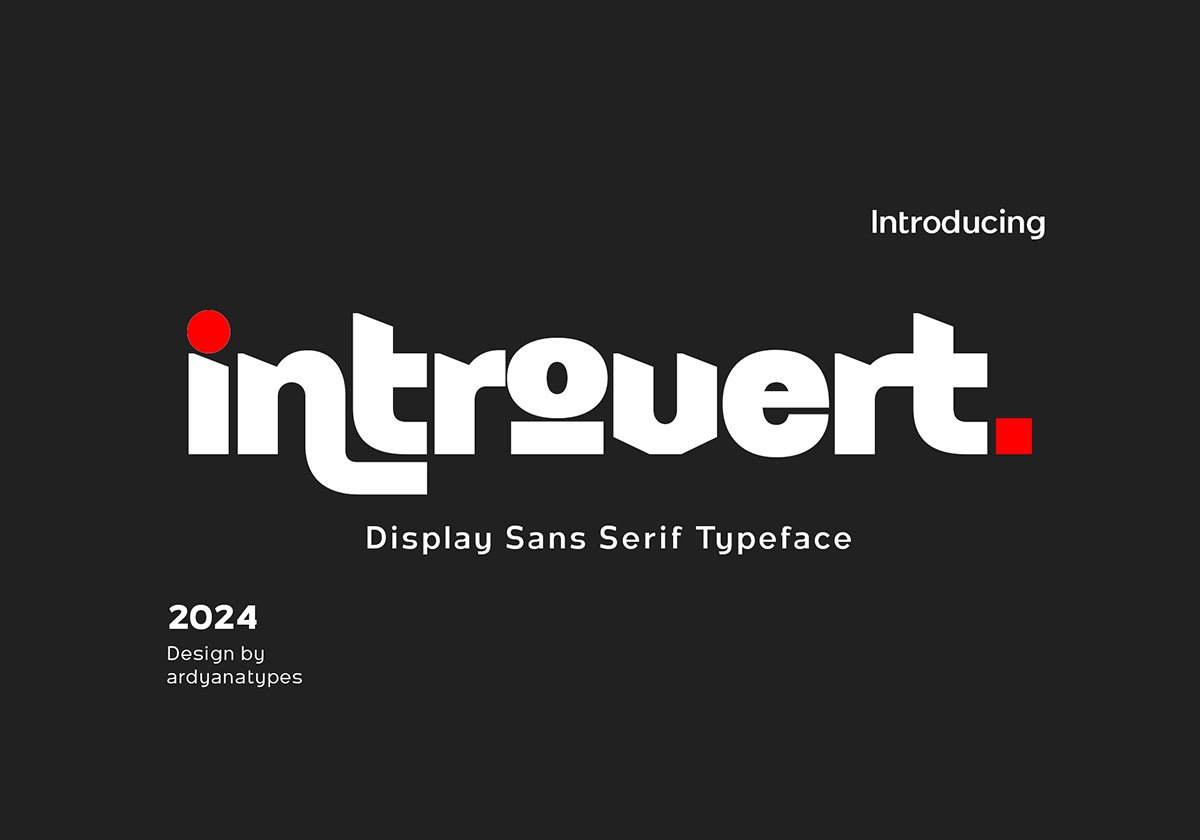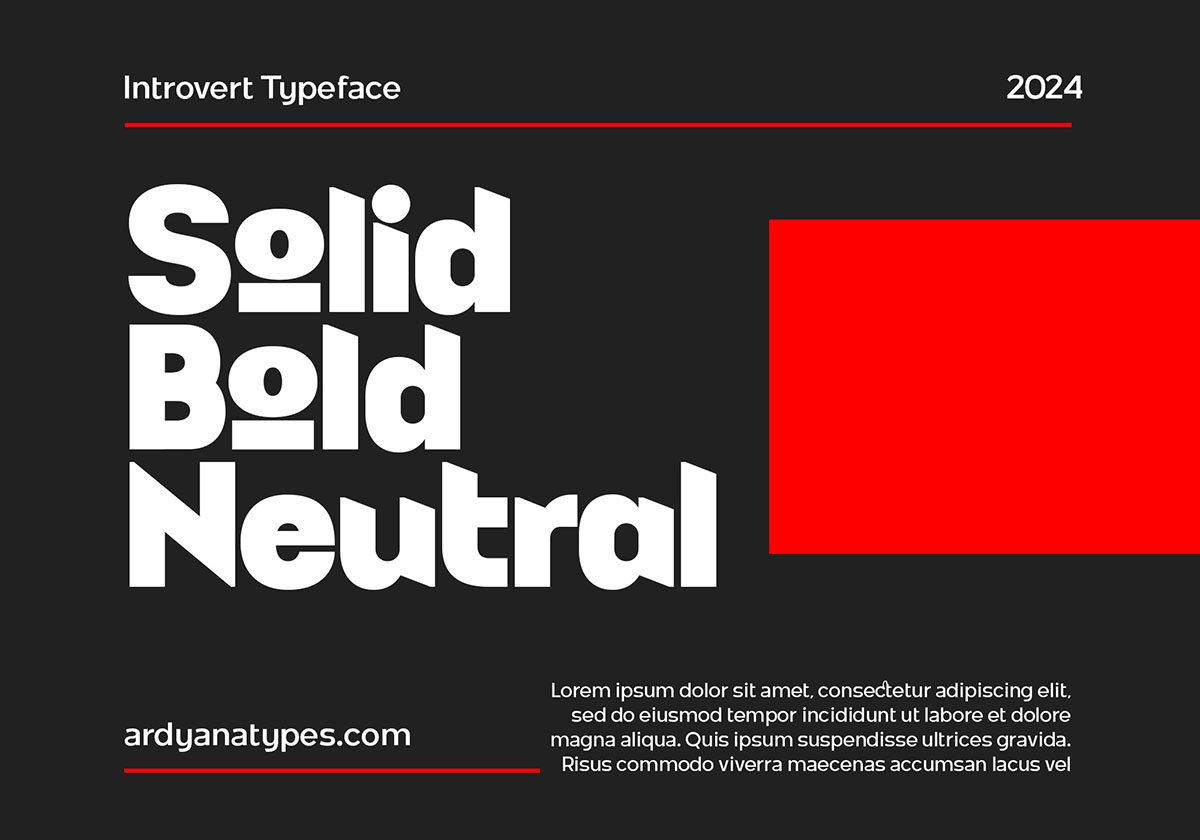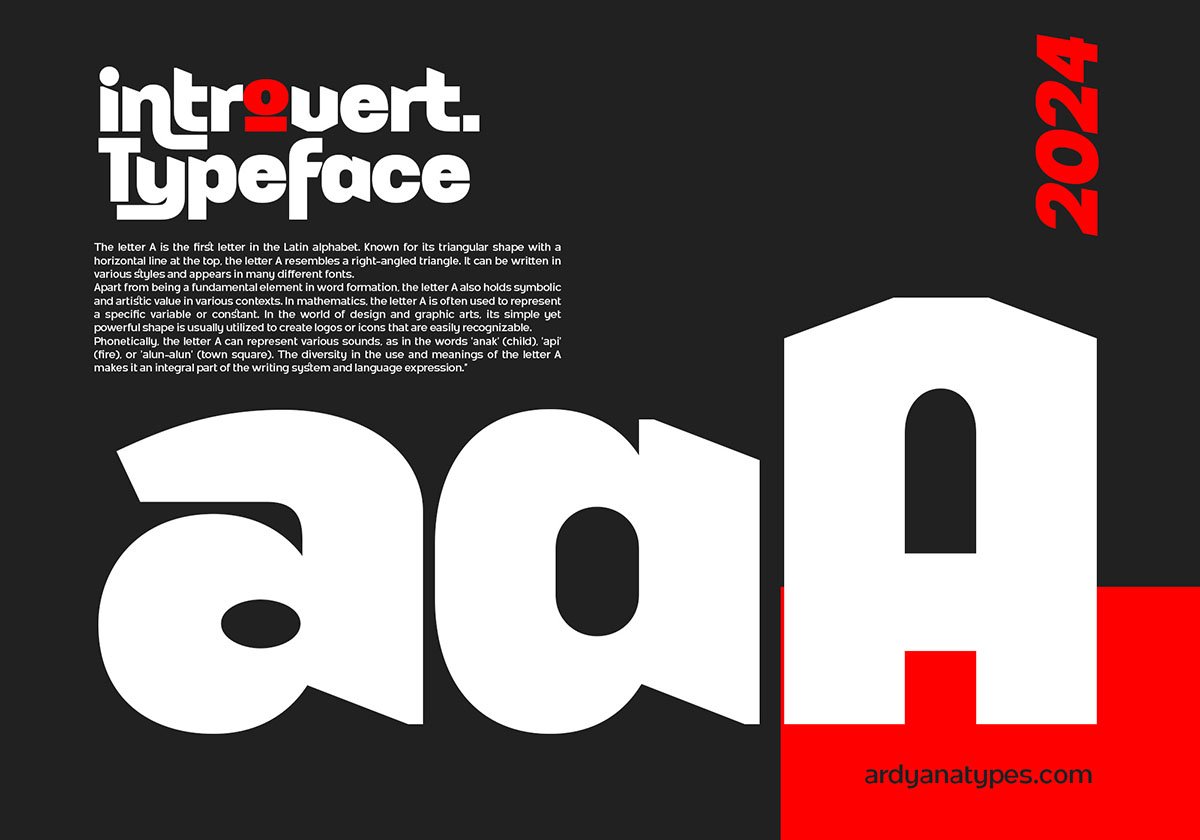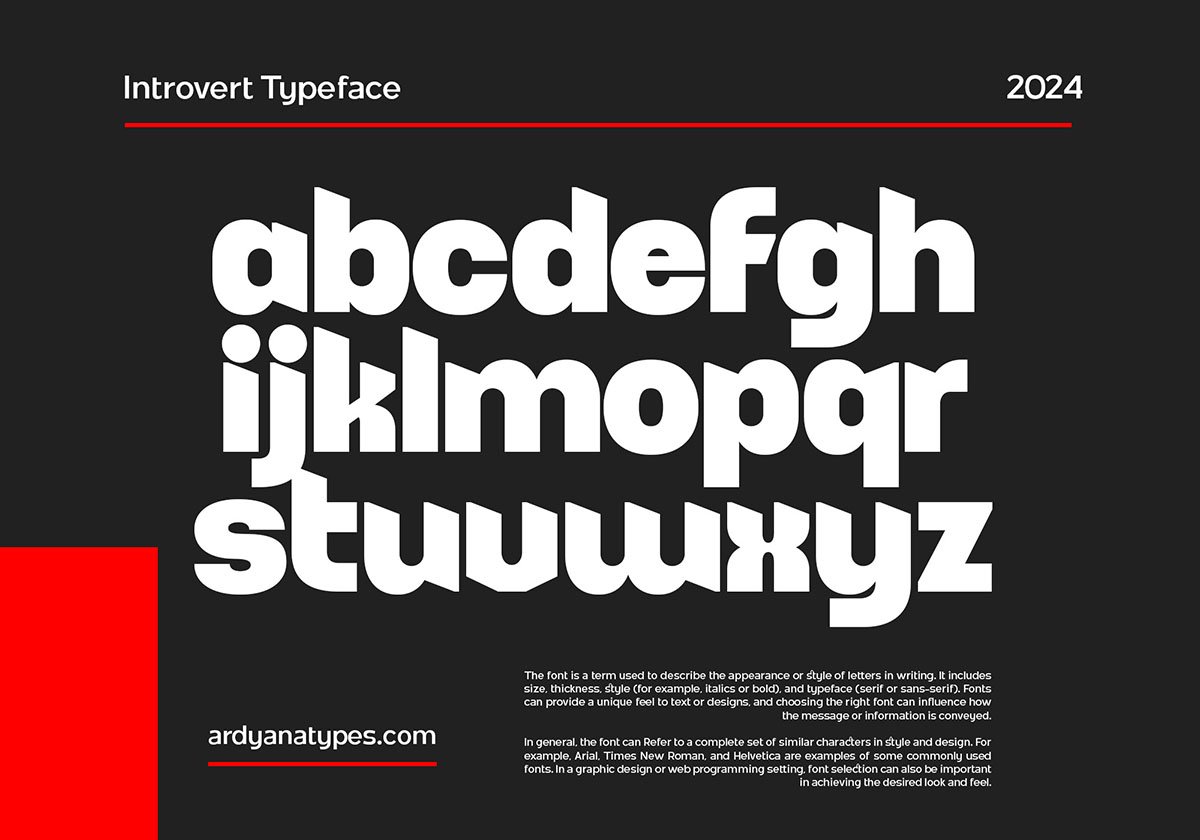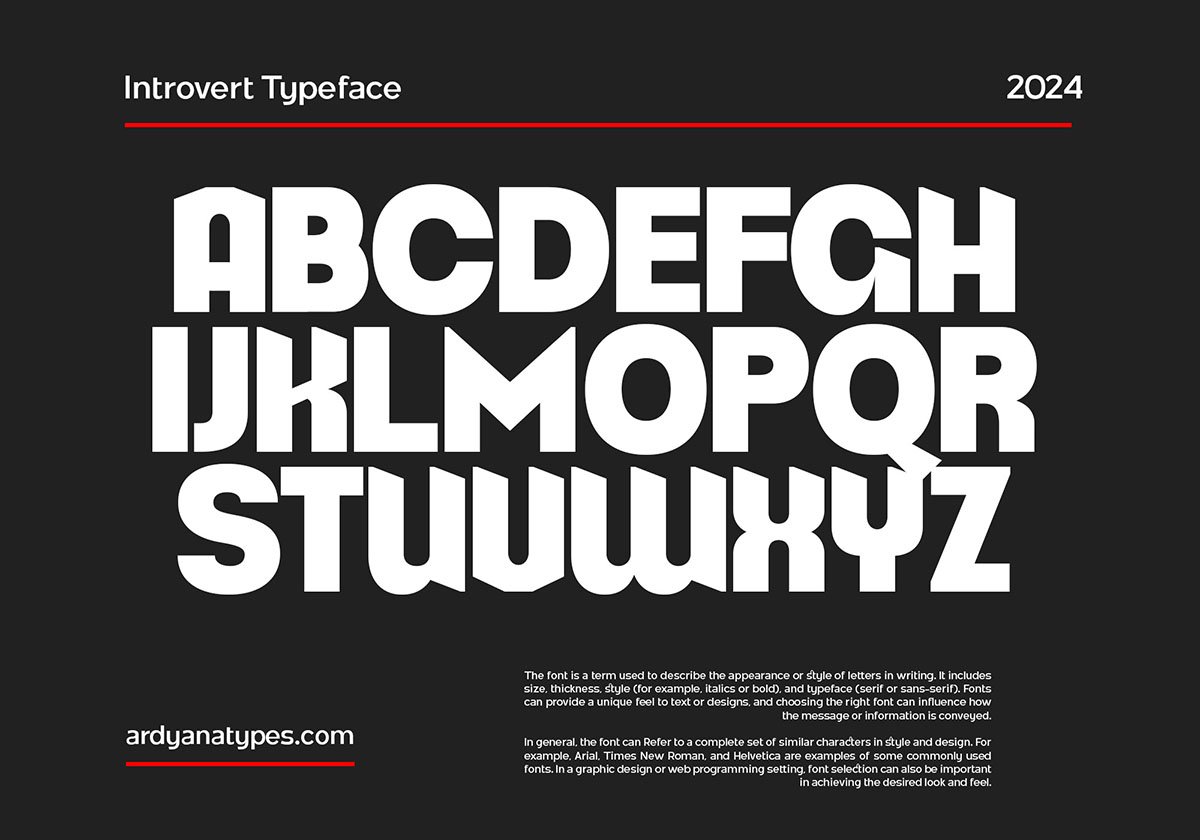
Introvert Display Font is here! It is a font that speaks volumes with its simplicity yet exudes unparalleled assertiveness. As a sans-serif typeface, Introvert is meticulously crafted with a unique form, offering extraordinary versatility for every design it graces. Its clean lines and sharp edges give it a commanding presence, making it perfect for projects that demand attention.
But Introvert isn’t just about looks—it’s also packed with OpenType features that unlock a world of possibilities. From ligatures to alternate glyphs, this font provides endless opportunities to customize and elevate your designs to new heights.